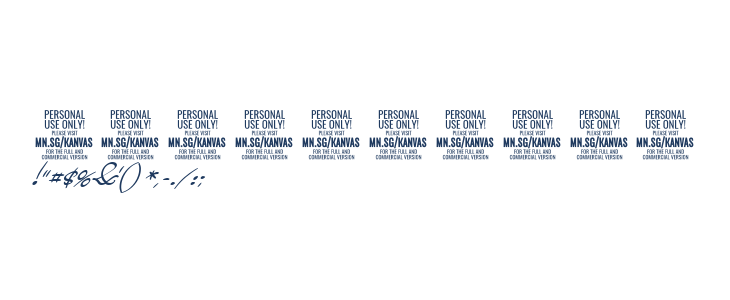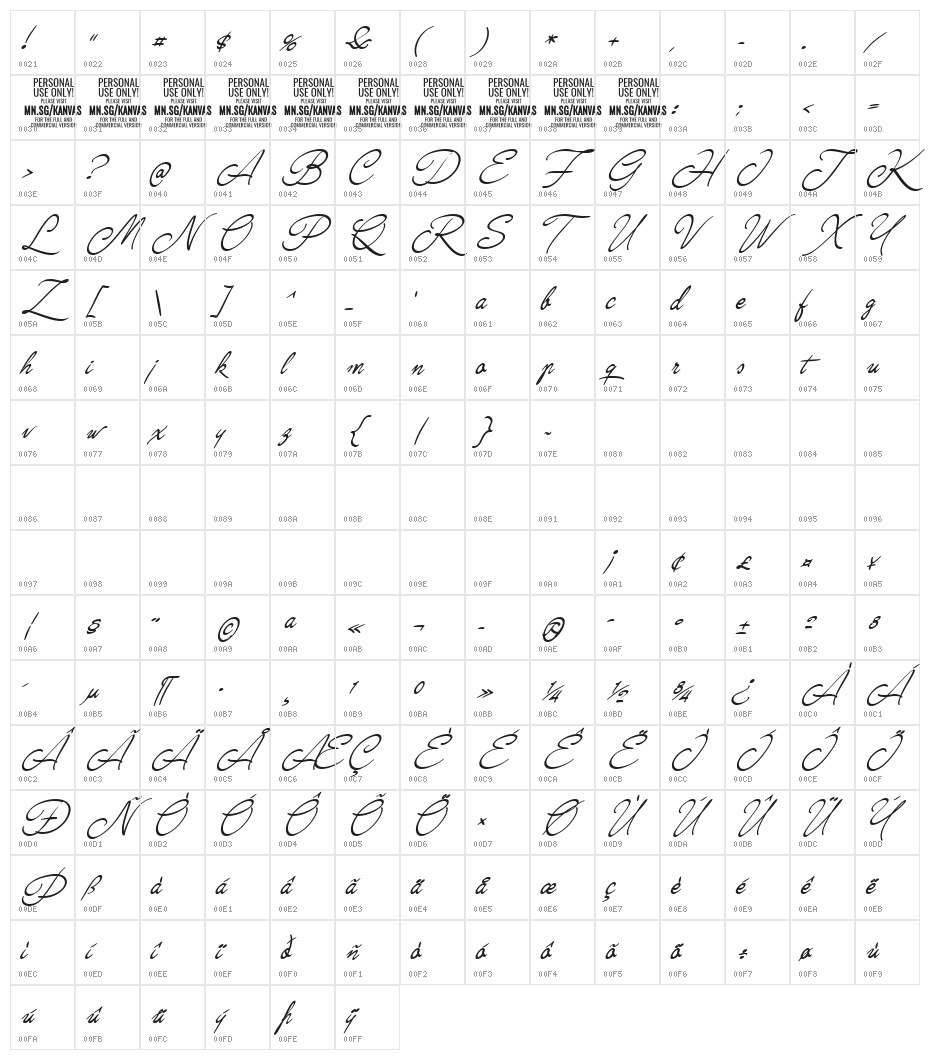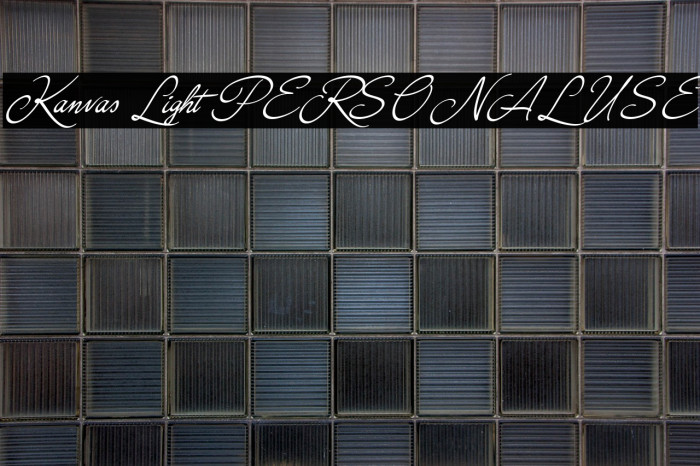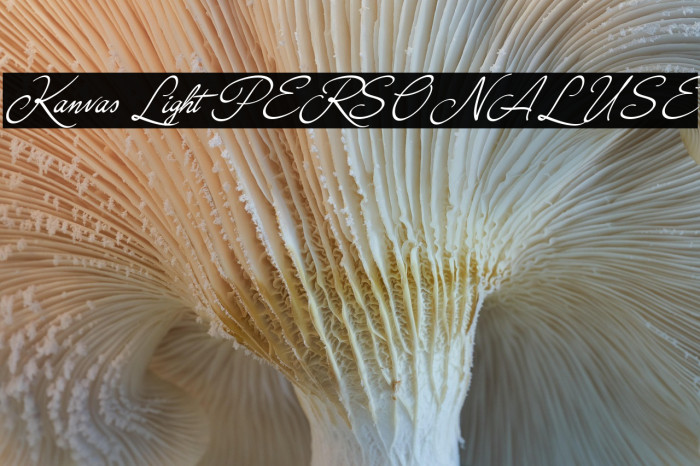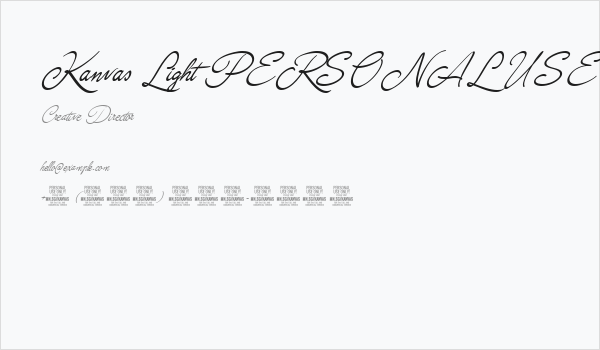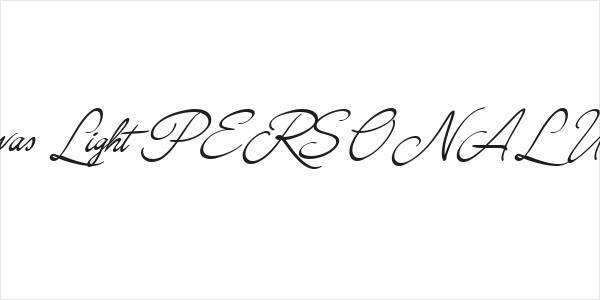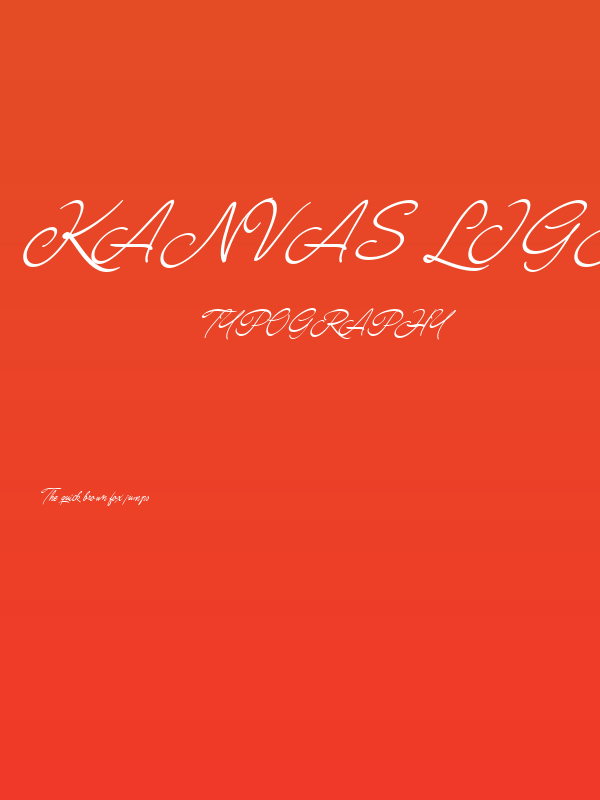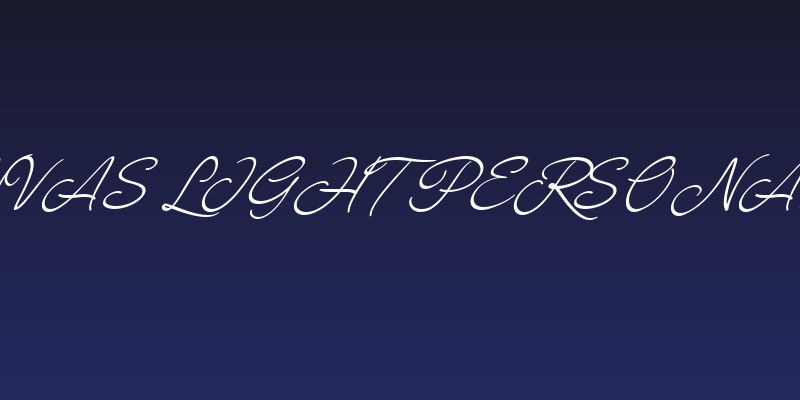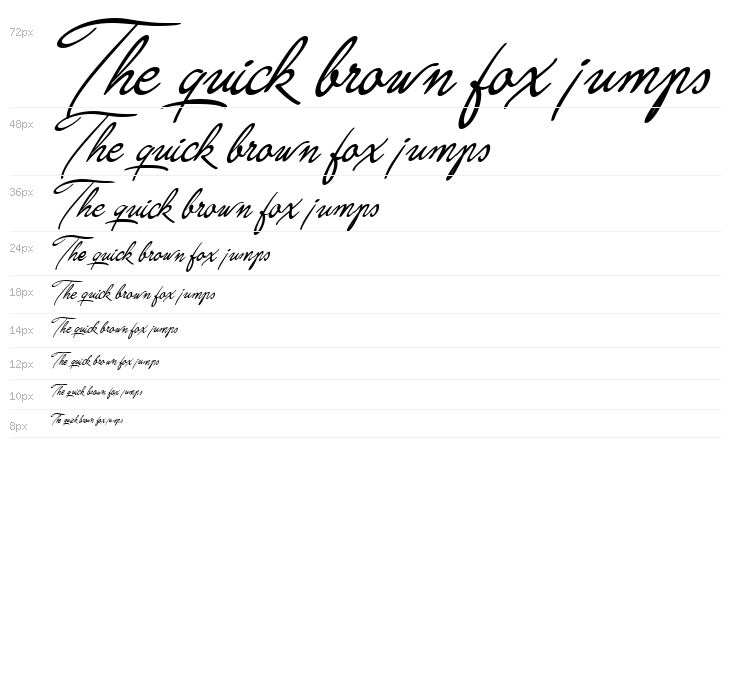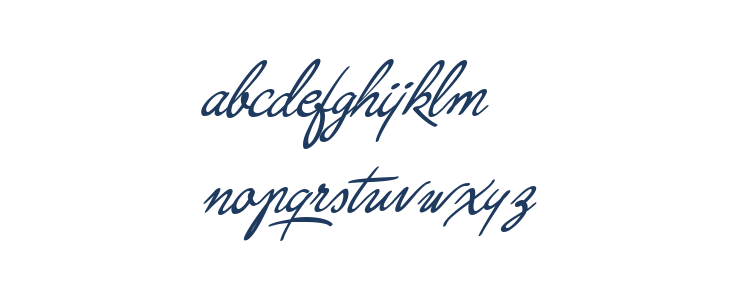
Kanvas Light PERSONAL USE Font
Kanvas Light PERSONAL USE Description
This font features an elegant and flowing script style, characterized by its smooth, cursive letterforms that mimic the fluidity of handwriting. The uppercase letters are particularly ornate, with sweeping curves and extended strokes that add a touch of sophistication. The lowercase letters maintain a consistent style, with a slightly more compact form that complements the uppercase. The numbers and special characters are crafted with the same attention to detail, ensuring a cohesive look across all elements. This font's overall appearance is both stylish and legible, making it suitable for a variety of creative applications.